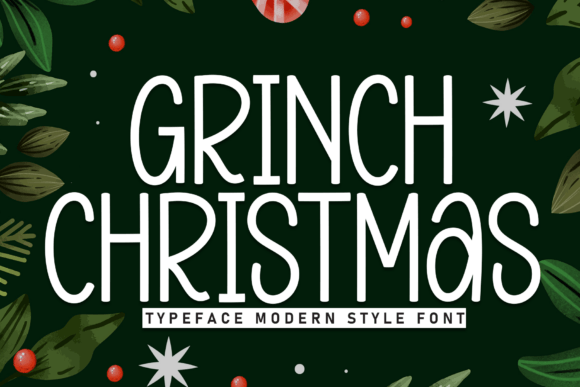
Grinch Christmas: The Quirky Typeface for Festive Branding
When I sat down to redesign the packaging for my holiday candle collection, I realized that a generic script just wasn't capturing the magic of the season. My business needed something with more personality, and that is when I discovered Grinch Christmas. This isn't just another typeface; it is a quirky and modern font with tall, playful letterforms that bring a whimsical charm to your holiday designs. Getting into the festive spirit with Grinch Christmas transformed my brand visuals from ordinary to unforgettable, proving that the right typography can make all the difference in how customers perceive your products.
How Grinch Christmas Elevates Holiday Card Designs
Get into the festive spirit with Grinch Christmas, a quirky and modern font with tall, playful letterforms that bring a whimsical charm to your holiday designs, especially when you are creating seasonal correspondence for your customers. As a small business owner, sending thank-you notes or holiday greetings is a powerful way to build loyalty, but standard fonts often feel cold and impersonal. Using this display font allows you to infuse warmth and humor directly into your message. Whether you are printing physical cards or designing digital versions for email newsletters, the unique character of these letters ensures your greeting stands out in a crowded inbox or mailbox. The tall, playful structure of the text draws the eye immediately, making your brand feel approachable and fun during the most wonderful time of the year.
Why Display Fonts Matter for Seasonal Packaging
Display fonts like Grinch Christmas offer a distinct visual identity that generic typefaces simply cannot match when it comes to product labeling and wrapping. Imagine placing your handmade soaps or gourmet treats under a tree; the label needs to pop with color and character. This specific font style is perfect for Christmas cards, decoration, and product tags because its whimsical nature suggests quality and care without feeling overly formal. For my own shop, switching to this font on my gift boxes made the unboxing experience feel like opening a present meant specifically for a friend. It turns a simple transaction into a memorable event, encouraging customers to share their purchases on social media, which is invaluable for organic marketing.
Grinch Christmas for Social Media Graphics and Online Shop Banners
Perfect for Christmas cards, decoration, and digital assets, Grinch Christmas brings a cohesive look to your online storefront. When updating my Instagram templates for the holiday season, I wanted a font that could handle bold headlines while maintaining readability on mobile screens. The tall, playful letterforms work exceptionally well as short phrases or catchy slogans in banner ads and story highlights. Unlike narrow scripts that become illegible at small sizes, this modern typeface retains its charm even when scaled down for thumbnails. By applying this font consistently across your website banners, Facebook posts, and Pinterest pins, you create a unified brand identity that feels professional yet festive, guiding visitors smoothly through your holiday sales funnel.
Enhancing Readability on Product Labels and Stickers
The whimsical charm of Grinch Christmas makes it an ideal choice for decorative accents on stickers and jar labels where space is limited but impact is high. One of the biggest challenges for small businesses is balancing creativity with clarity; if customers cannot read what they are buying, they will not buy it. Fortunately, the clear structure of these letters ensures that essential information remains legible while still delivering a strong stylistic statement. I used it for the main title on my candle jars, pairing it with a clean sans-serif font for the ingredients list. This combination creates a hierarchy that is easy to scan, ensuring your product looks polished and trustworthy on the shelf or in a digital catalog.
Building a Memorable Brand Identity with Modern Typography
Fonts play a crucial role in defining your brand's voice, and Grinch Christmas adds a layer of storytelling to your visual assets. A consistent use of typography helps customers recognize your business instantly, whether they see your logo on a coffee cup or your name on a website footer. This quirky and modern font injects a sense of joy and celebration into your brand narrative, signaling that you are a business that cares about details and customer happiness. When potential clients see your materials, they should feel an immediate connection to the personality you project. By choosing a font that aligns with your brand values, you build trust and encourage repeat business, turning one-time buyers into loyal advocates who appreciate the effort you put into your design choices.
Simple Font Pairing Strategies for Professional Results
While Grinch Christmas is perfect for headlines, combining it with a clean sans serif font creates a balanced and professional layout. You do not need to be a graphic designer to achieve great results; simply letting the display font take center stage for titles and using a neutral companion for body text is a winning strategy. For instance, use this festive typeface for "Holiday Special" or "New Arrival" headers, and pair it with a straightforward geometric sans serif for pricing and descriptions. This contrast prevents the design from becoming too busy or difficult to read. If you prefer a softer look, an elegant serif font can also complement the playful nature of Grinch Christmas, offering a sophisticated twist to your holiday collections.
Ensuring Commercial Success with High-Quality Design Assets
Investing in premium font files ensures that your commercial projects look crisp on every device and print surface. Before downloading any typeface, it is important to check the included styles, file formats, and licensing terms to ensure you have the freedom to use them on merchandise and client work. With Grinch Christmas, you get access to a versatile set of characters that support multilingual needs and various weights, giving you the flexibility to adapt your designs for different markets. Whether you are producing thousands of stickers or a single custom sign, having reliable, high-resolution files guarantees that your final product looks as good as you intended. This peace of mind allows you to focus on growing your business rather than worrying about technical glitches or legal issues.
Practical Applications for Cafés, Boutiques, and Crafters
From café menus to boutique tags, Grinch Christmas serves as a versatile tool for diverse creative industries. I have seen bakeries use similar playful fonts to announce daily specials, while beauty brands utilize them for limited-edition gift sets. The key is to match the font's energy with your product's vibe. If you sell cozy home goods, the whimsical charm of this font enhances the feeling of comfort and relaxation. If you run a coaching business, it can add a touch of creativity to your workshop flyers. By integrating this font into your everyday business materials, you signal that you are up-to-date with current trends while maintaining a unique, personal touch that resonates with your audience.